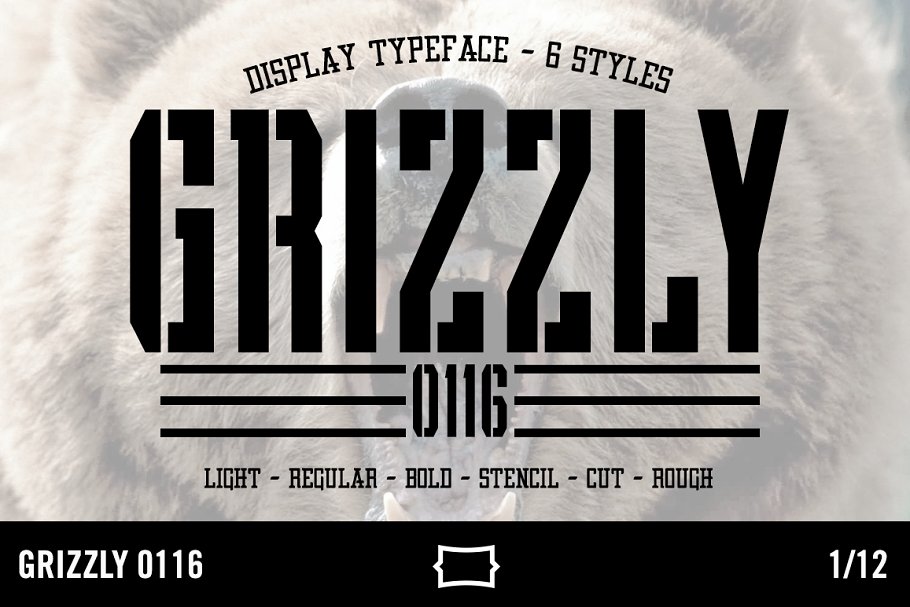
Introducing Grizzly 0116 Display Typeface, the font collection that will revolutionize your designs. Created by the talented American Eargle, this collection boasts 6 different styles that are guaranteed to captivate your audience.
Light, Regular, and Bold styles are perfect for those with discerning taste in typography. With clean lines and impeccable spacing, these styles exude elegance and professionalism.
But we didn't stop there. Our Stencil style breaks the mold of traditional stencil fonts by simplifying the points of the stencil break. Say goodbye to boring and hello to innovation.
For those who crave a bevel feel, our Cut style is a must-have. Inspired by sports type and college branding, this style adds a touch of excitement to any design. Just imagine the impact it will have on your projects.
If you're looking for a touch of ruggedness, our Rough style is perfect for you. With its rough edges, it adds a unique and edgy vibe to your designs. Take a look at the incredible Grizzly Bear example created by Dylan Winters to see the power of this style.
But that's not all. Grizzly 0116 is just the beginning. It is the first in a series of 12 fonts that will be released monthly throughout 2016. So you can expect new and exciting styles to keep your designs fresh and cutting-edge all year long.